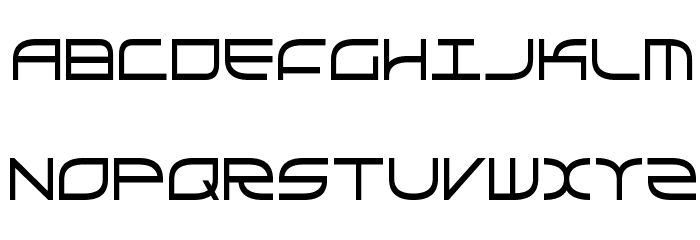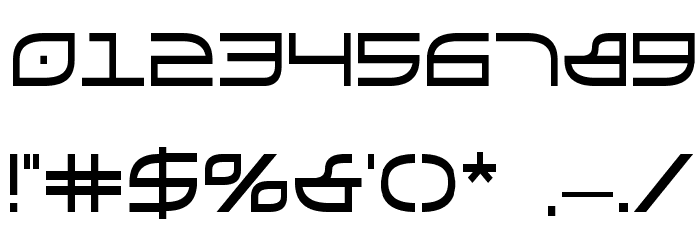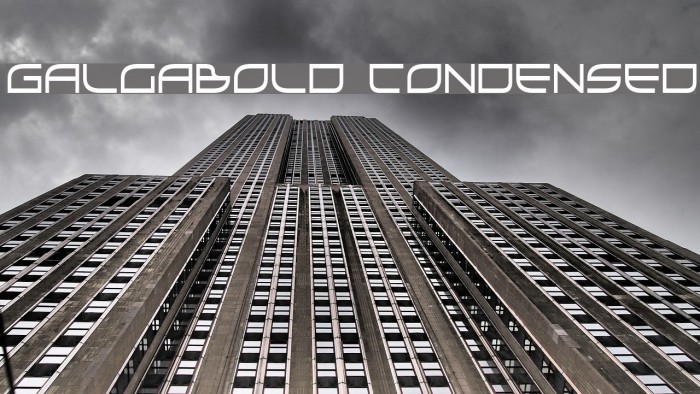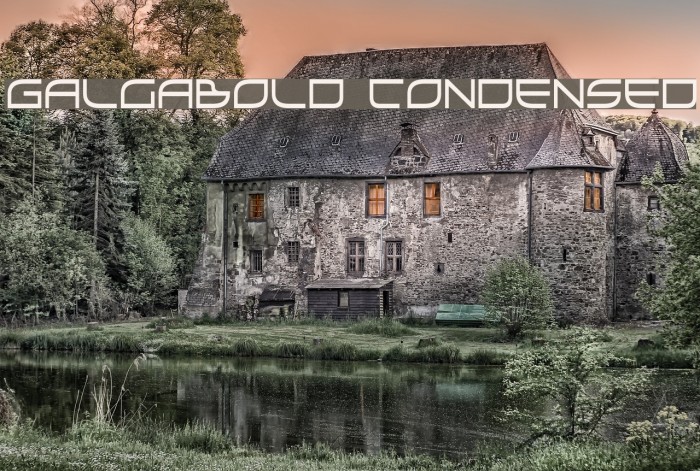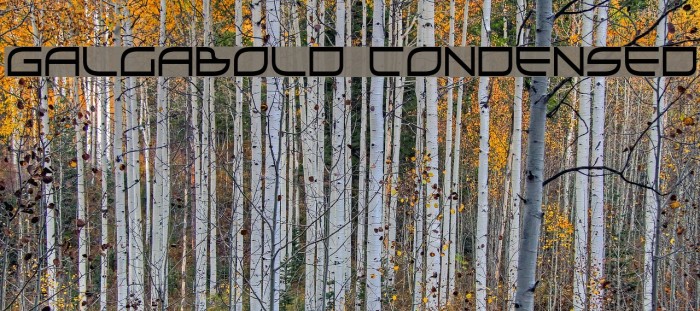
GalgaBold Condensed Font
This font features a futuristic and geometric design with a distinct condensed style. The characters are constructed with clean, sharp lines and rounded edges, creating a sleek and modern appearance. The uppercase and lowercase letters maintain a consistent height, contributing to a uniform look. The numerals and special characters follow the same design principles, ensuring a cohesive visual experience. The font's unique structure makes it stand out, with certain letters like 'A', 'R', and 'Q' showcasing innovative cuts and angles. This font is ideal for projects that require a contemporary and tech-inspired aesthetic.
A futuristic, geometric font with a sleek, condensed style.
- Proposed Projects: Ideal for technology branding, sci-fi posters, modern logos, and digital interfaces.
- Use Case: Logos, Headlines, Digital interfaces